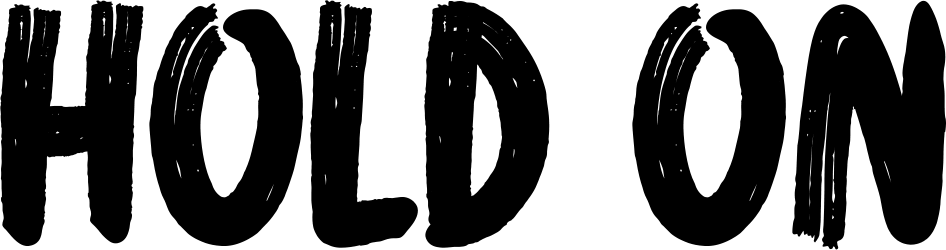
Hold On Font
Hold On font is one of the brushes and bold designs that give your work a unique beauty. This child-friendly font will be great with many hand-written fonts, even though it does not have small characters and numbers avai…
Hold On font is one of the brushes and bold designs that give your work a unique beauty. This child-friendly font will be great with many hand-written fonts, even though it does not have small characters and numbers available.
We also suggest using this brush font to design Halloween flyers and postcards, so you do not have to create characters from scratch and, in some way, save your time.